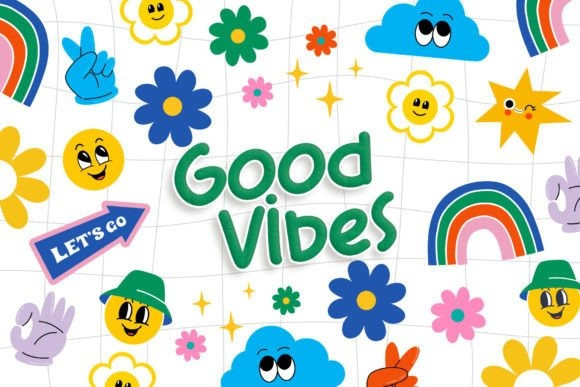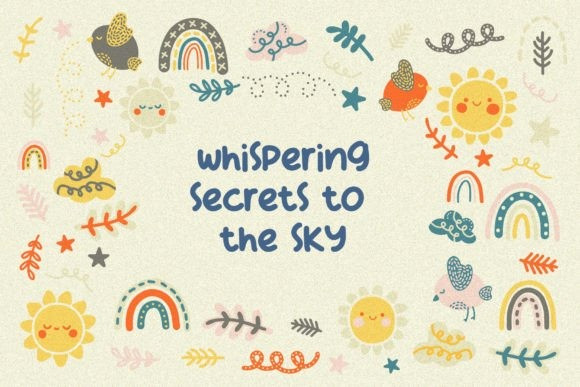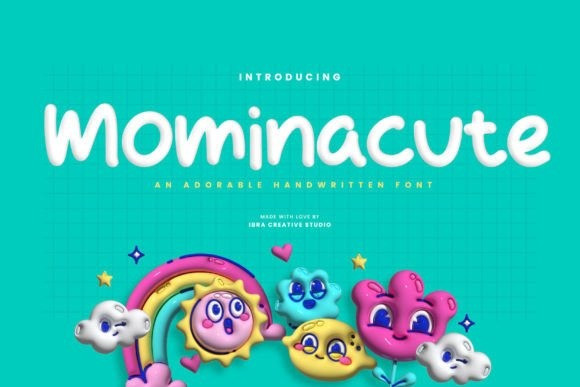
Mominacute Font
Mominacute Font is an adorable handwritten font that radiates charm and sweetness. With its delicate letterforms and whimsical curves, Mominacute captures the essence of cuteness and playfulness. Each letter feels like a gentle brushstroke, exuding a sense of innocence and joy. The soft and friendly nature of this font makes it a perfect choice for designs aimed at capturing the hearts of young audiences, such as children’s books, playful invitations, and cheerful branding. Mominacute adds a touch of endearing personality to any project, bringing smiles and warmth to those who encounter it.